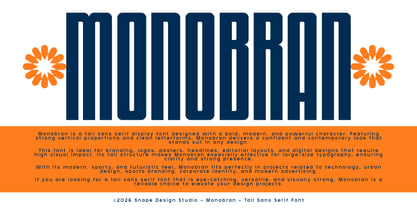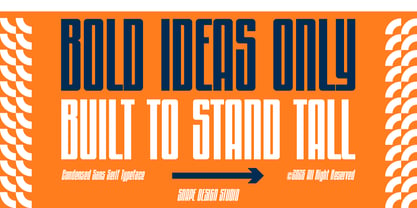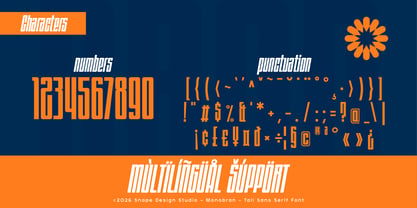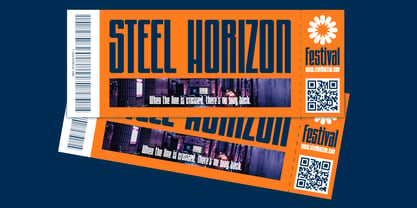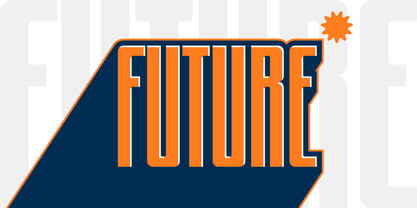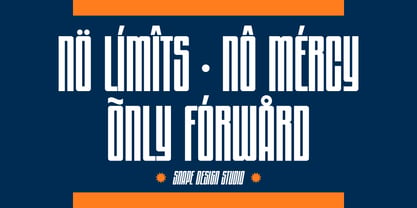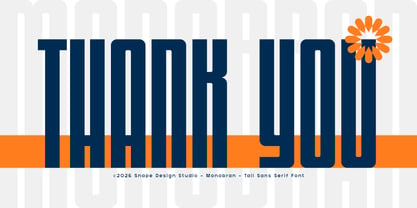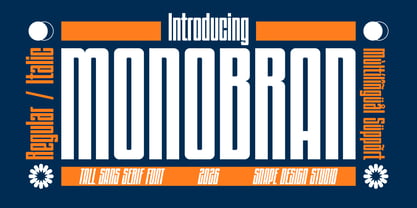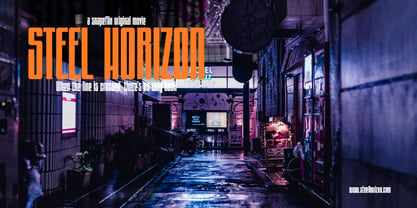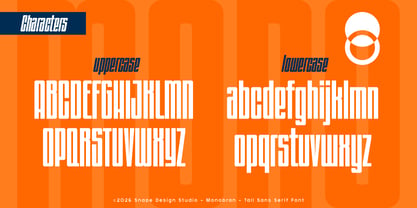
Monobran
by snapedsgn
The Monobran Font Family was designed by Ario Sabrang and published by snapedsgn. Monobran contains 2 styles and family package options. More about this family
Monobran is a bold and modern tall sans serif display font designed to make a strong visual impact. With its condensed proportions, clean geometry, and confident letterforms, Monobran is built to stand out in headlines, posters, branding, and editorial layouts. This font combines a contemporary industrial feel with a sleek typographic structure, making it perfect for projects that demand clarity, power, and style. Its tall and narrow design allows you to create eye-catching compositions while saving horizontal space, ideal for modern graphic design needs. Key Features: Tall & condensed sans serif style Strong, bold, and modern character Clean and sharp letterforms Highly readable at large sizes Perfect for display and headline use Suitable For: Branding & logo design Posters & flyers Editorial and magazine layouts Social media graphics Advertising & marketing materials Web headers and UI design Monobran works best as a display font, delivering a confident and contemporary look that elevates your visual identity. Whether you're designing for digital or print, this font brings a bold typographic voice to your project. Add Monobran to your font collection and give your designs a strong, modern presence. If you have any inquiries or need assistance, please feel free to contact us. We appreciate your support in enhancing your creative projects! Best Regards, Snape Design Studio.
Designers: Ario Sabrang
Current Foundry: snapedsgn